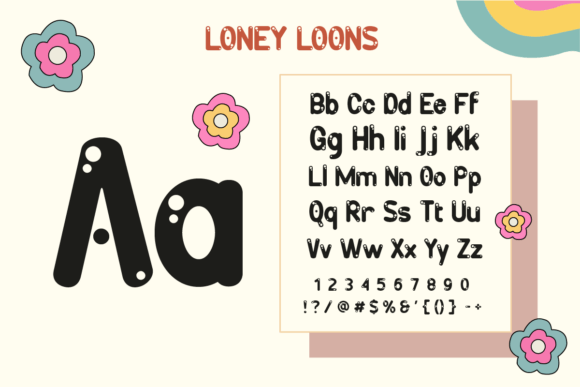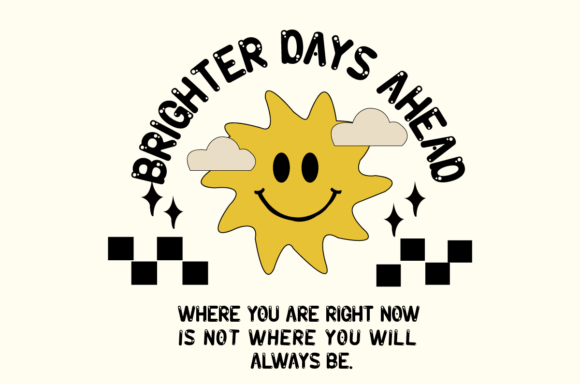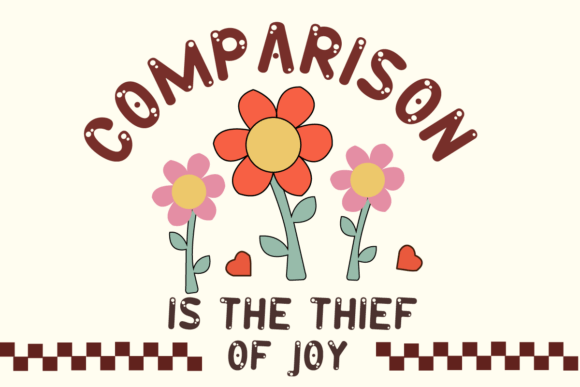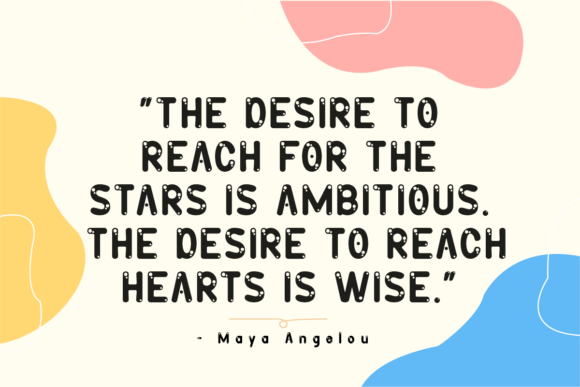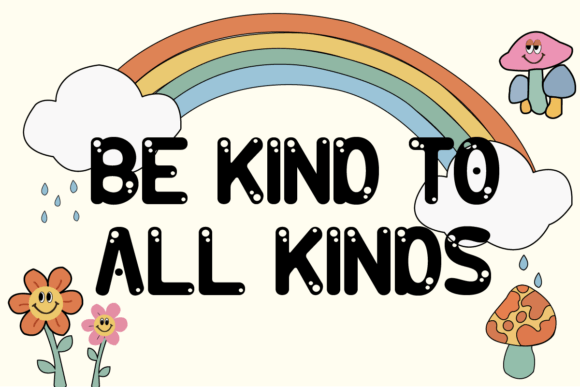
Introduction to Loney Loons Font Font
Fonts play a crucial role in design, and the Loney Loons Font font is a typeface that brings both character and versatility to any project. Whether you’re working on a branding project, a website, or a print design, the Loney Loons Font font offers a unique style that can elevate your work.
| 👤 Author | Burntilldead |
Say helo to Loney Loons, a modern, playful and unique font that creates contemporary look with artistic flair and balances readability.
The style features smooth, rounded edges combined with holes within the letterforms The rounded curves add a soft, approachable feel, while the holes introduce a sense of the edginess, making it perfect for creative projects, branding or eye-catching headlines.
Key Features of Loney Loons Font Font
Why Choose Loney Loons Font Font?
The Loney Loons Font font is more than just a typeface – it’s a design tool that helps you communicate your message with style and clarity. Its unique character set and versatile design make it suitable for a wide range of applications, from elegant invitations to bold headlines.
With its carefully crafted letterforms and balanced proportions, the Loney Loons Font font ensures readability and visual appeal across all mediums.
What makes Loney Loons Font font special?
The Loney Loons Font font stands out with its unique design, exceptional readability, and versatility across various design applications.